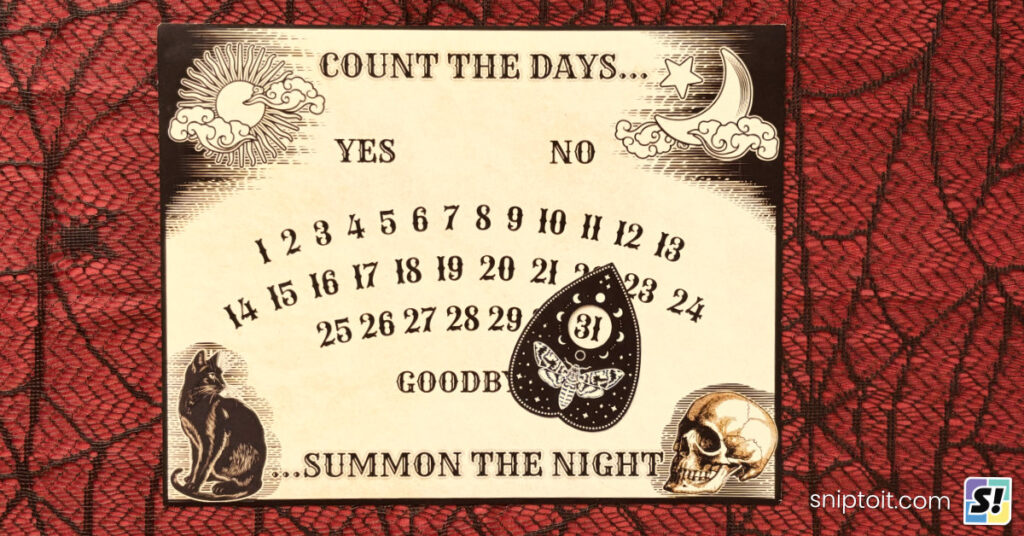
Good news for candy connoisseurs, Tim Burton fans, and goths everywhere: Halloween is coming! Whether you’re making a friendly jack-o-lantern shirt or you prefer horror decor, chances are you’ll need a fittingly haunted font. I’ve chosen a wide range of styles to bring you 50 of the best free Halloween fonts for Cricut or Silhouette crafting.
Most Halloween fonts look best at larger sizes, so the fonts I’ve picked are almost all cutting fonts for signs, shirts, costumes, and decor. But I’ve also included a few fonts I think are great to use for writing on party invitations or gift tags.
I have tested each one of these fonts and you can see the cutting and writing results below. I also included photos of some projects we’ve made with these fonts.
Free Halloween Cutting Fonts
Free fonts can vary a lot in terms of how much of the character set you get. I only chose fonts that have a full alphabet. In addition:
- most (but not all) fonts include numbers 0-9
- most fonts are all capital letters, some have lowercase
- some fonts have a different version that you can access using the lowercase letter set
To make sure that every drip and scratch would cut properly, I set every font to a minimum 1″ tall and cut them out of either Cricut removable vinyl (white, red, silver) or Siser EasyPSV (purple). I mounted them on cardstock for the photos below.
Every font in this list cut perfectly using a regular Fine Point blade and Cricut Premium Vinyl material setting.
Horror and bloody/dripping fonts
These are a mix of spiky, ragged, horror fonts and drippy/bloody fonts that are perfect for seriously scary projects. I was surprised how cleanly I was able to cut every little jagged edge and drip.
- Melted Monster
- Nightside
- Nosferotica (uppercase and lowercase versions shown)
- Psychomachy
- Red Undead
- Swamp Witch
- Shlop
- The Night Creatures (takes a little longer to cut because the letters have a fine, ragged edge; do not cut smaller than 1″)
- Wolves vs Monster
Famous fonts
These fonts are homages to various movies/TV/etc., and although some are listed as free for commercial use, I’d stay away from anything but a personal project with these.
- Army of Darkness
- Coraline’s Cat
- Deanna (Night of the Living Dead)
- Evil Dead
- Friday 13
- Mars Attacks
- Misfits
- Rocky AOE (Rocky Horror Picture Show)
- Scream Real
- Strong Glasgow (American Horror Story)
Classic fonts
Classic monster movie fonts that look good for all kinds of projects. Creepster and Ghoulish Fright are both free for any use.
We used Creepster for Ian’s Halloween Hall of Fame shirt:
Cute, kid-friendly, whimsical Halloween fonts
These are my favorite fun, curly, off-kilter fonts, reminiscent of Tim Burton movies and Hocus Pocus.
We have used ActionIs (free for commercial use) twice for Halloween projects: once for a trick or treat bag we made, and also for the free Spooky Vibes Only SVG Ian designed this year:
- Horror Area
- Laff Riot NF
- Midnight Story
- Retro Bones
- Vampire Zone (lowercase characters will give you straight caps with no curls)
Ian used Horror Area for the other warped text t-shirt design he made:
Spooky Art Deco
These deco-inspired fonts, along with Strong Glasgow, are perfect for classy Halloween get-togethers.
Ian and I chose Hill House for a beautiful Art Deco-style ouija design this year:
Pirate fonts
Ahar, matey! These fonts (plus La Sangrienta Caslon up top) are perfect old pirate fonts.
Dark carnival fonts
What’s creepier than clowns and Depression-era circuses? These fonts evoke circuses and calssic ouija boards, and Maverick BE is a great stencil font if you need one.
We made our classic ouija board table mat design using Rye:
Bonus: Evilz Dingbat font
Evilz font is the best source for fun and simple Halloween images you’re going to find, and they are all easy to cut single layers. Look at that adorable Grim Reaper! Evilz is free for commercial use.
Ian created this character map for you: to choose the image you want, type the corresponding letter, number, or symbol in the Evilz font.
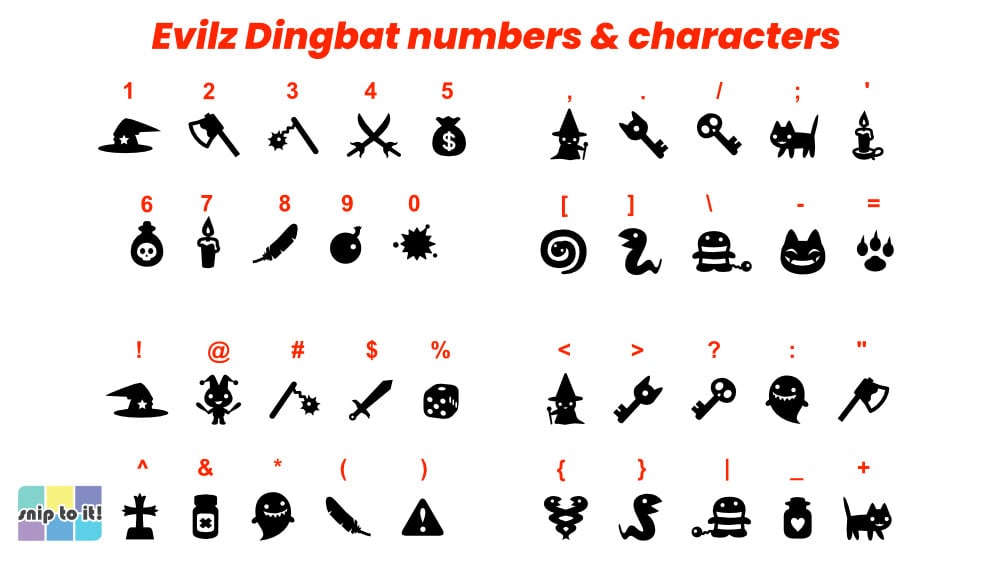
We used capital NN to add the upside down bats to our black Spooky Vibes Only shirt:
Free Halloween Writing Fonts
Sometimes you need a Halloween writing font for cards, invitations, tags, place cards, etc. The selection for truly Halloween-esque thin writing fonts was nearly nonexistent, so I just chose one that I really liked. If The Eighteenth Amendment typeface one doesn’t meet your project needs, you can always check out my list of more than 100 free single-line writing fonts.
I used this font for the inside of my party invitations: